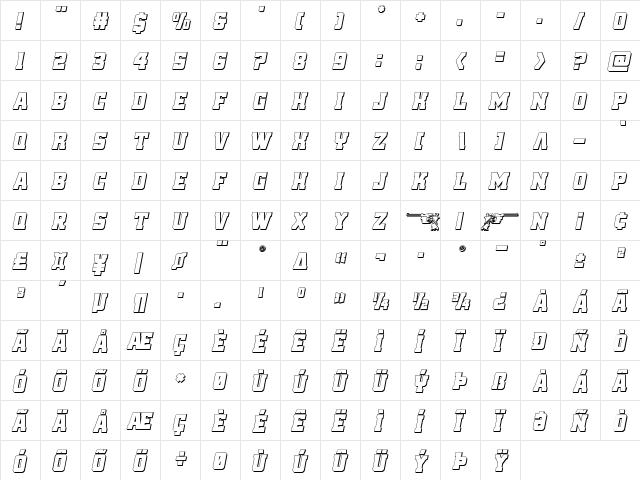
Red Delicious 3D Italic Italic
Design Context for Red Delicious 3D Italic Typeface
Red Delicious 3D Italic is a composed and adaptable typeface that performs quietly and consistently across a wide range of design contexts. Its italic angle brings a sense of urgency and motion to the letterforms.
Pro Tip: Use Red Delicious 3D Italic for emphasis, pull quotes, and subheadings where its slanted energy can add rhythm to the layout.